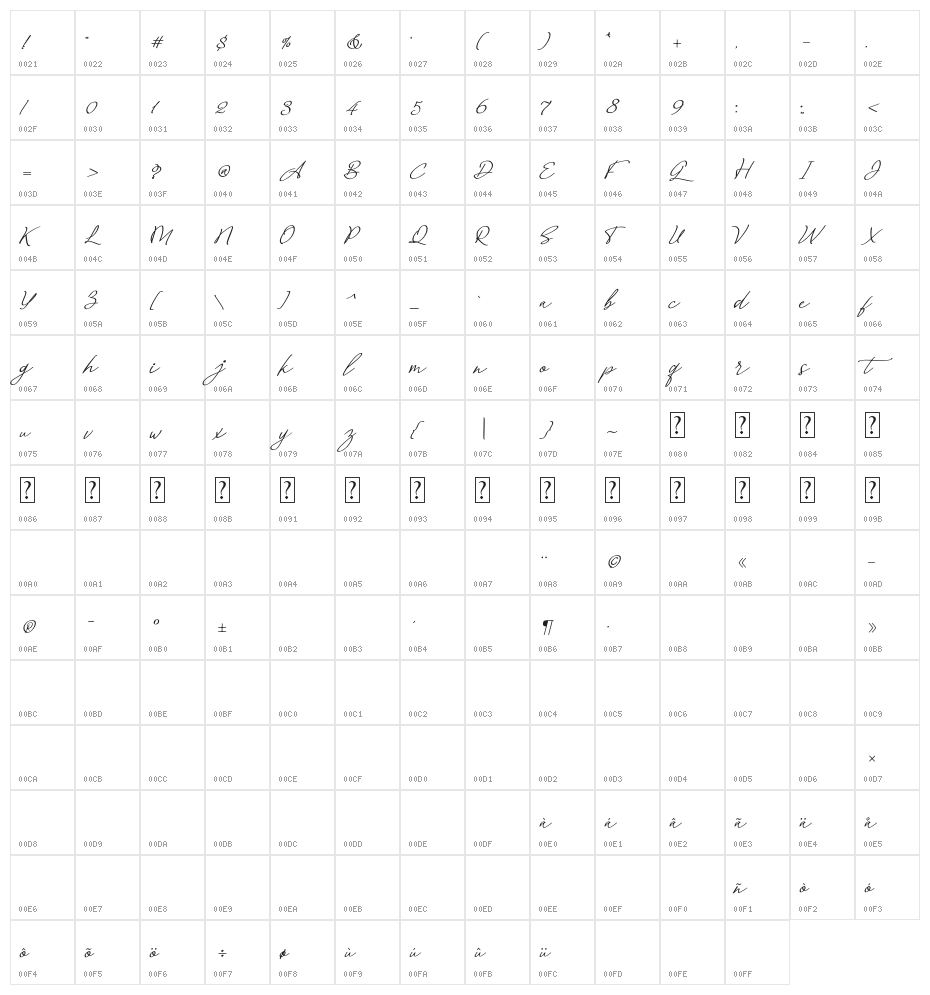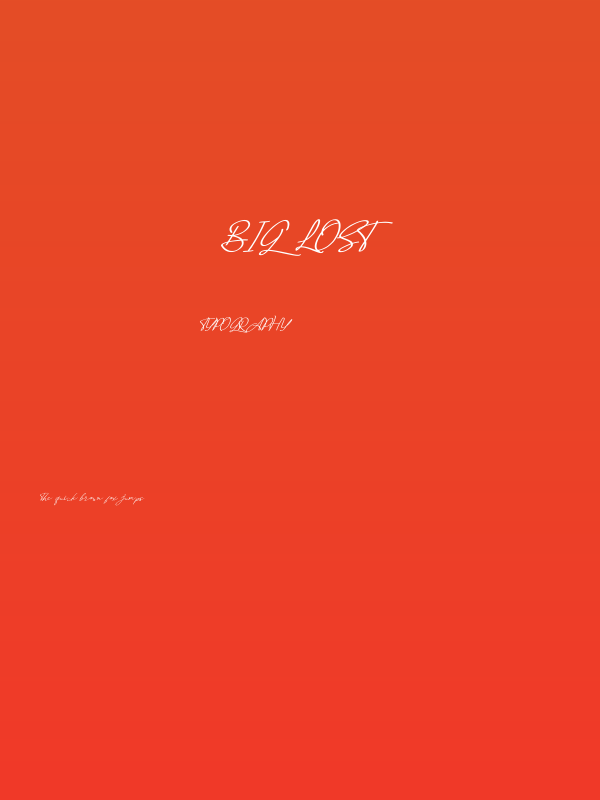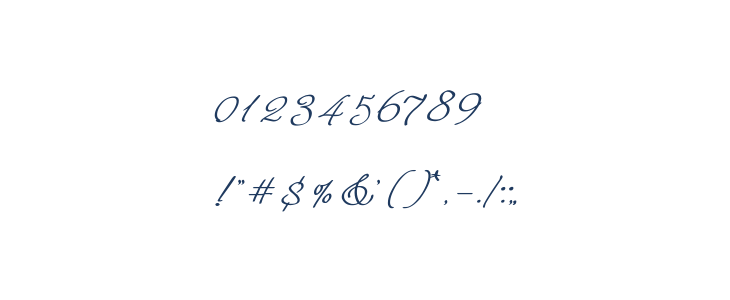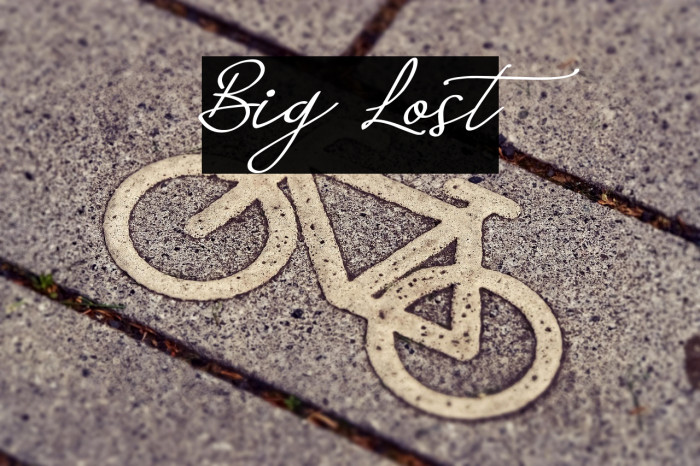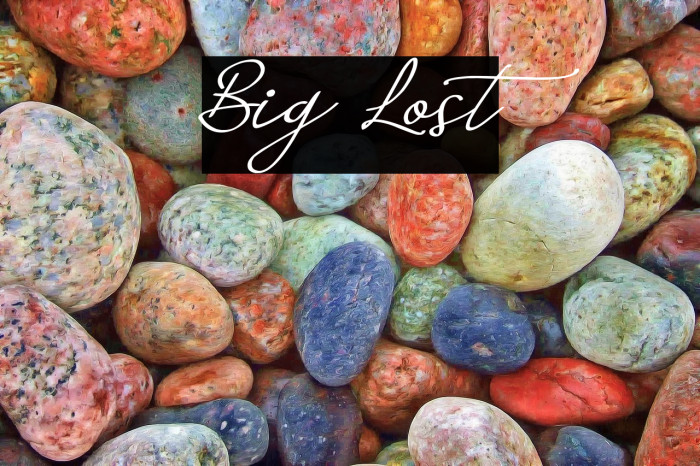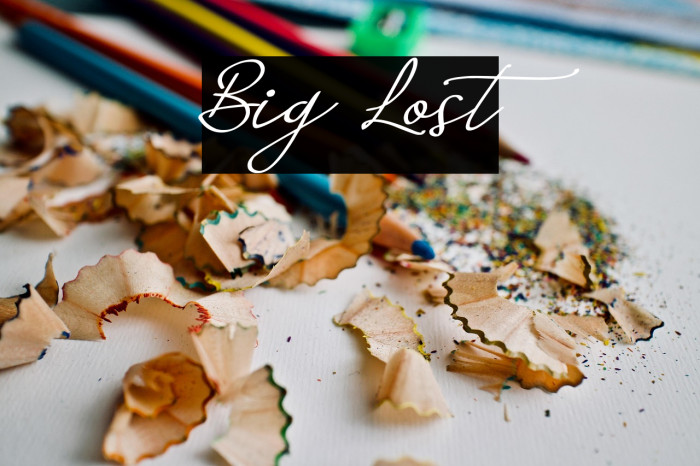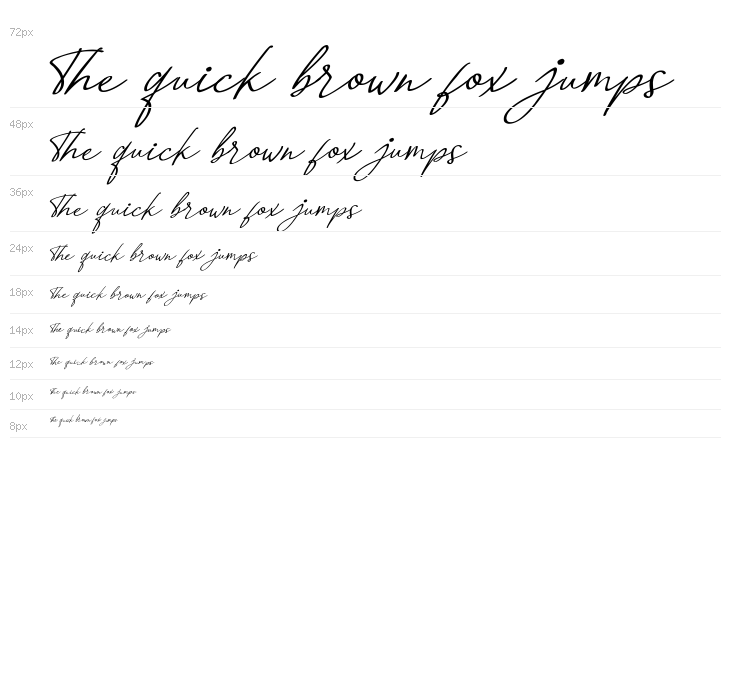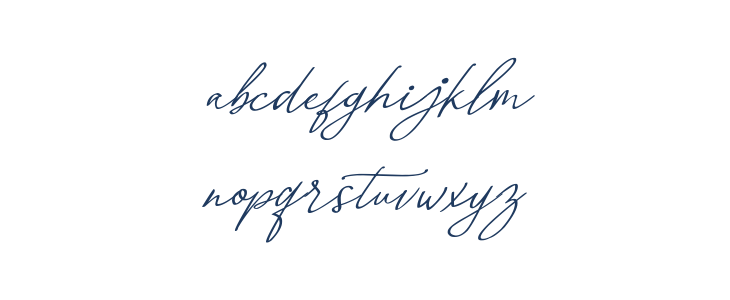
Big Lost Font
Big Lost Description
This elegant script font features flowing, cursive letterforms with a distinct handwritten quality. The characters are connected in a fluid manner, giving the text a sense of movement and grace. The uppercase letters are bold and prominent, while the lowercase letters maintain a consistent style with slightly more subtlety. Numbers and special characters are designed to match the overall aesthetic, ensuring a cohesive look across all text elements. The font's strokes vary in thickness, adding a dynamic contrast that enhances readability while maintaining an artistic flair.